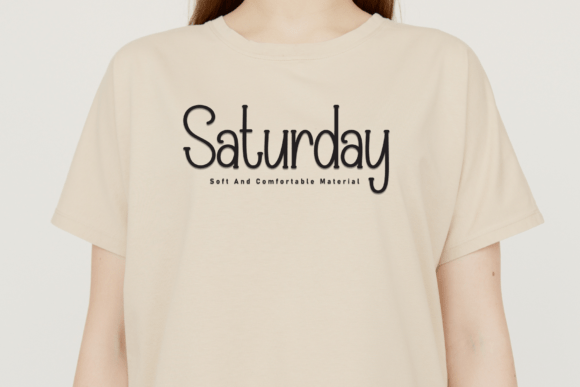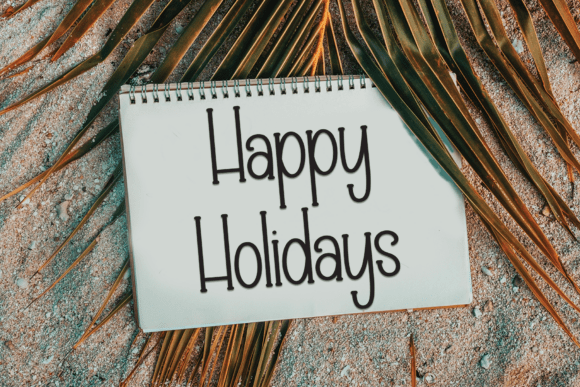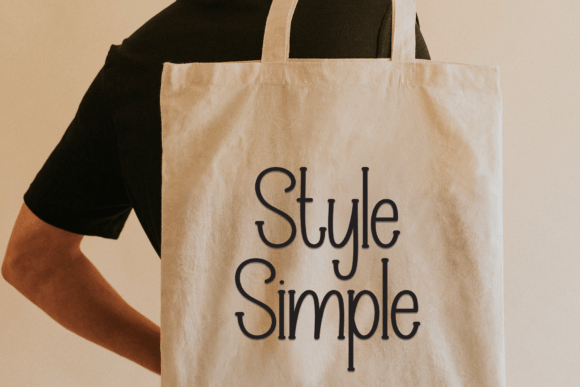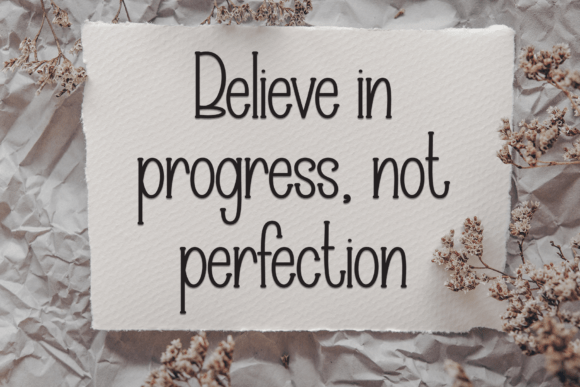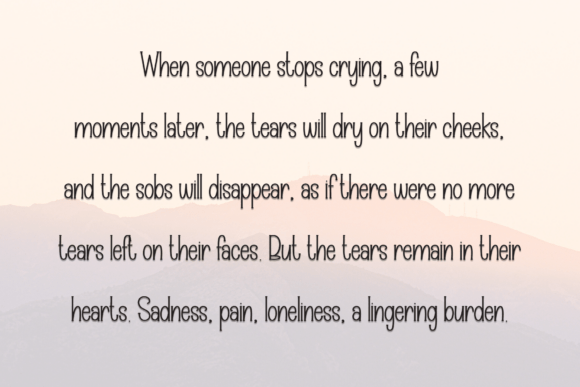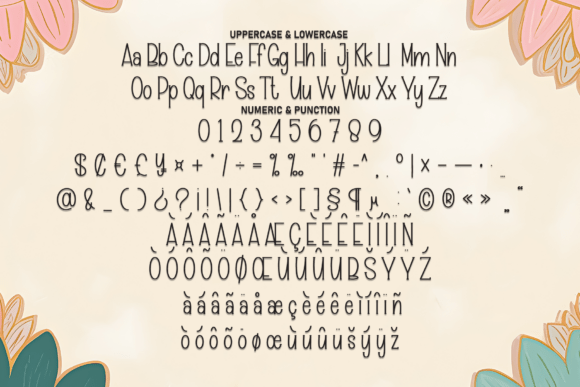
Happy Saturday Font: Elevate Your Designs with Whimsical Elegance
Are you tired of using the same old fonts in your designs? Look no further than the Happy Saturday Font, a striking typeface that embodies the perfect blend of whimsy and sophistication. This charming font is designed to add a touch of magic to your artistic creations, making them truly unforgettable.
The Perfect Blend of Amicability and Allure
The Happy Saturday Font is exquisitely crafted to radiate an aura of endearment and festivity, making it ideal for a wide range of design applications. Whether you’re creating wedding invitations, greeting cards, or any other type of design that requires a touch of elegance, this font is sure to impress. Its unique blend of amicability and allure ensures that your designs will stand out from the crowd and leave a lasting impression on your audience.
Breathe New Life into Ordinary Designs
One of the most significant advantages of the Happy Saturday Font is its ability to transform ordinary designs into something truly extraordinary. With its touch of magic and whimsical flair, this font can add a fresh breath of life to even the most mundane designs. Whether you’re a designer, crafter, or DIY enthusiast, this font is sure to inspire you to create something truly special.
Infuse Your Designs with a Pinch of Delight
The Happy Saturday Font is more than just a typeface – it’s a creative flavor that seasons your work with verve and vitality. With its visually captivating design, this font is sure to infuse your artistic creations with a rejuvenating spin, ensuring that they leave an indelible impression of joy on your audience. Whether you’re designing for a special occasion or just want to add some whimsy to your everyday designs, this font is the perfect choice.
Perfect for Wedding Invitations and More
Wedding invitations are one of the most popular uses for the Happy Saturday Font, and for good reason. This font’s elegant and whimsical design makes it perfect for couples who want to add a touch of magic to their special day. However, its uses don’t stop there. This font is also ideal for:
- Greeting cards: Add a touch of whimsy and elegance to your greeting cards, making them truly unforgettable.
- DIY projects: Infuse your DIY projects with a pinch of delight, making them stand out from the crowd.
- Signage: Use the Happy Saturday Font to create eye-catching signage that’s sure to grab attention.
- Digital designs: Add a touch of whimsy and elegance to your digital designs, including social media graphics, blog posts, and more.
Why Choose the Happy Saturday Font?
With so many fonts to choose from, why should you choose the Happy Saturday Font? Here are just a few reasons:
- Unique design: The Happy Saturday Font features a unique and visually captivating design that’s sure to stand out from the crowd.
- Versatile: This font is perfect for a wide range of design applications, from wedding invitations to digital designs.
- Elegant and whimsical: The Happy Saturday Font embodies the perfect blend of elegance and whimsy, making it ideal for designers and crafters who want to add a touch of magic to their creations.
In conclusion, the Happy Saturday Font is a striking typeface that’s sure to elevate your designs with its whimsical elegance. With its unique blend of amicability and allure, this font is perfect for designers and crafters who want to add a touch of magic to their creations. Whether you’re designing wedding invitations, greeting cards, or any other type of design, this font is sure to impress. So why wait? Try the Happy Saturday Font today and infuse your artistic creations with a rejuvenating spin that’s sure to leave an indelible impression of joy.